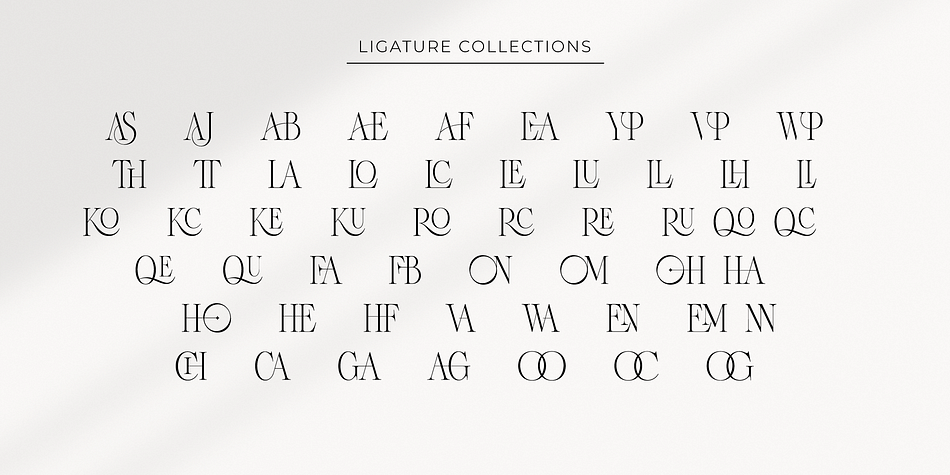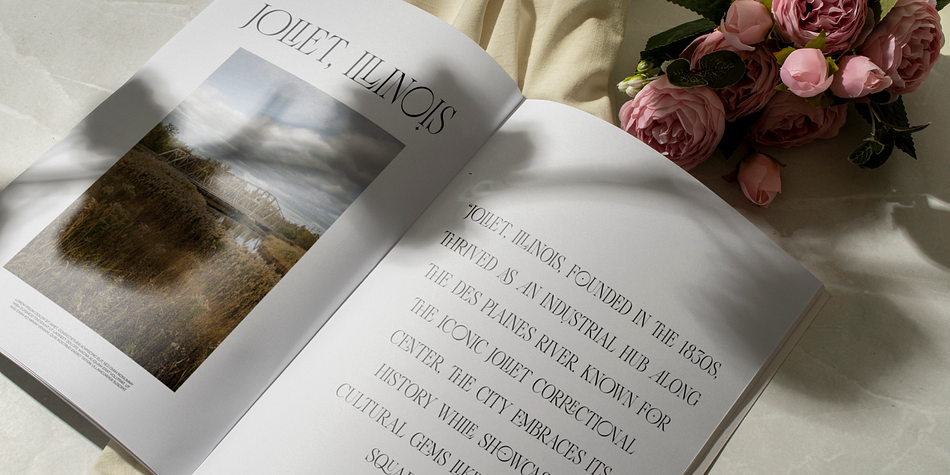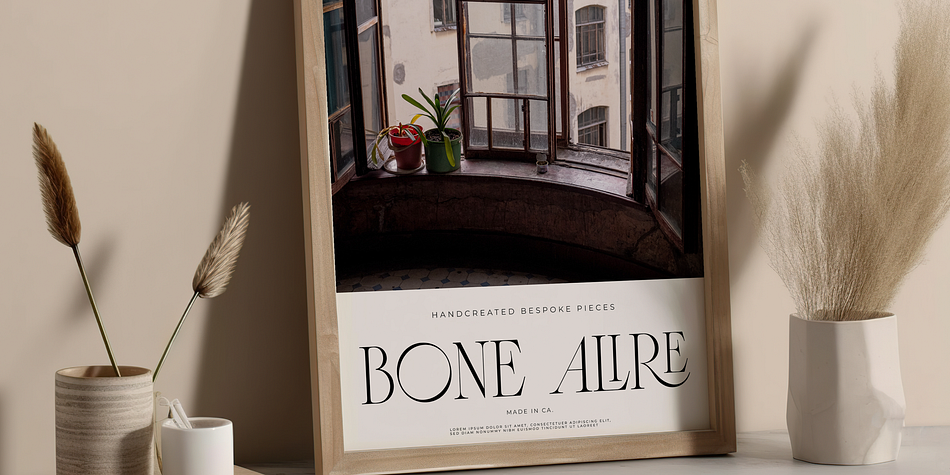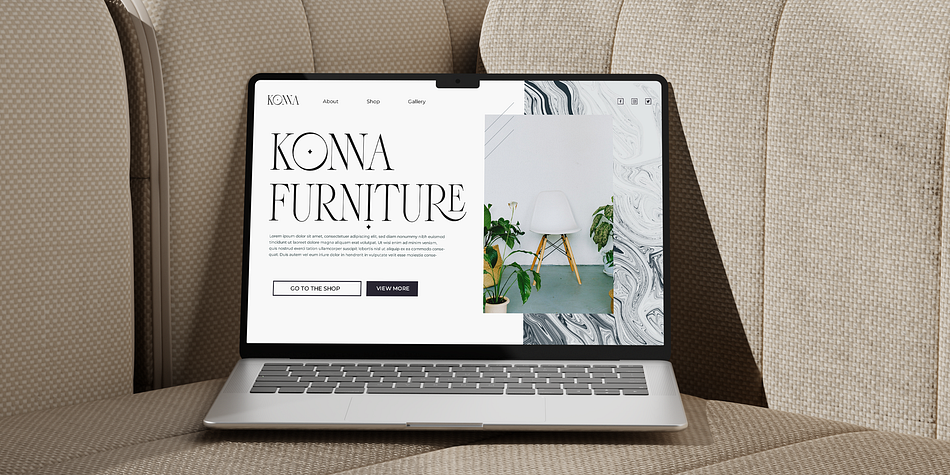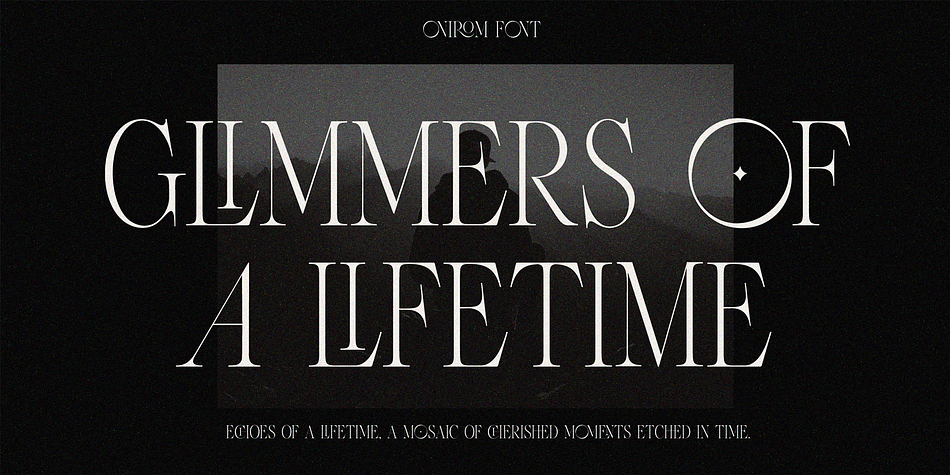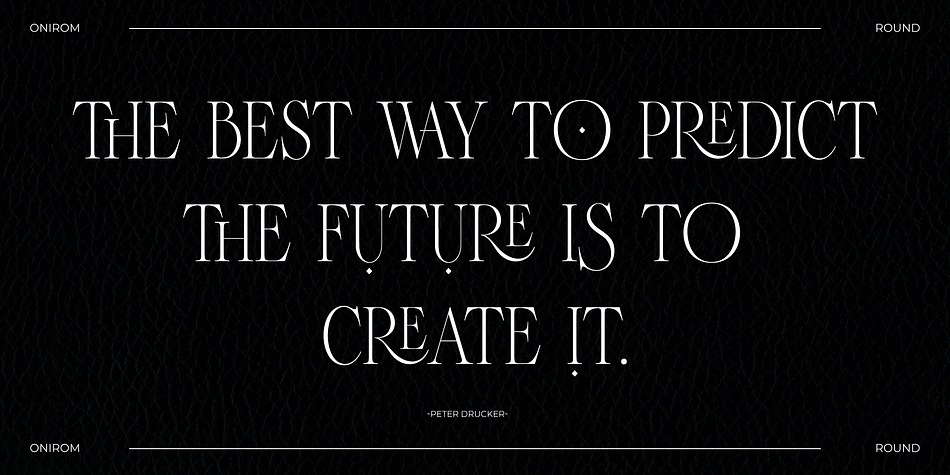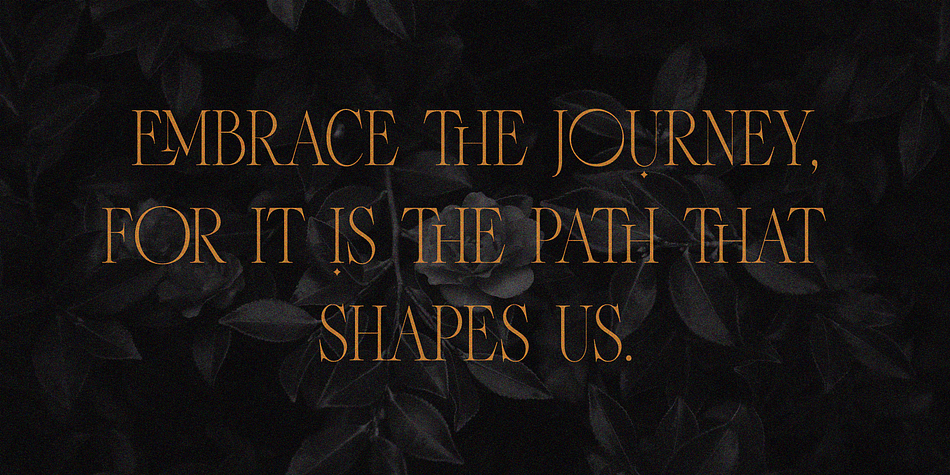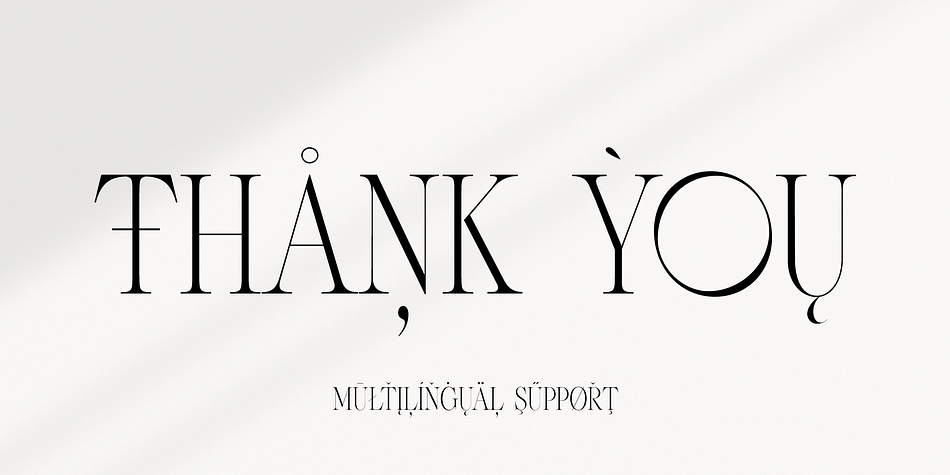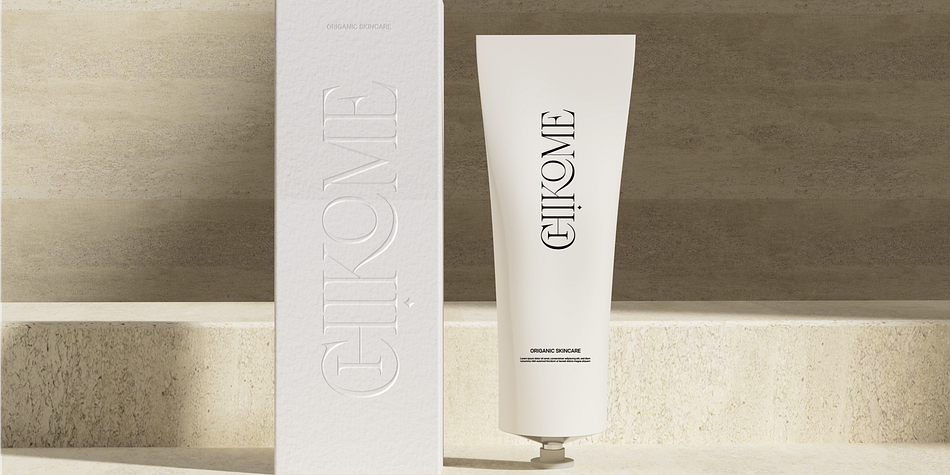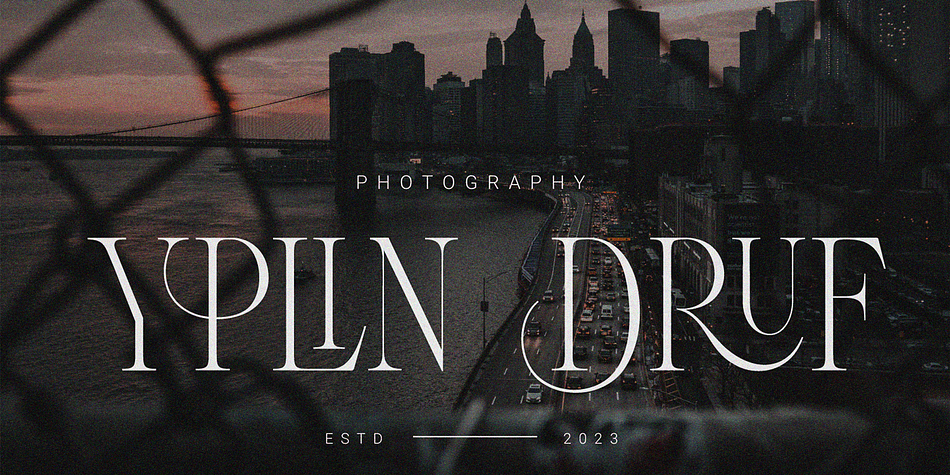
ONIROM
Onirom is a display serif font family. This typeface has two styles and was published by IssamType.
Onirom is a Modern ligature serif font comes with joining ligatures that give it a fancy and unique style. This awesome font is perfect for branding, logos, invitation, watermark and so much more.
Onirom typeface comes with regular and round font styles. Uppercase letters, numbers, punctuation, ligatures, alternates and multilingual support.
OpenType Features:
Kerning
Alternates
Ligatures
Stylistic Sets